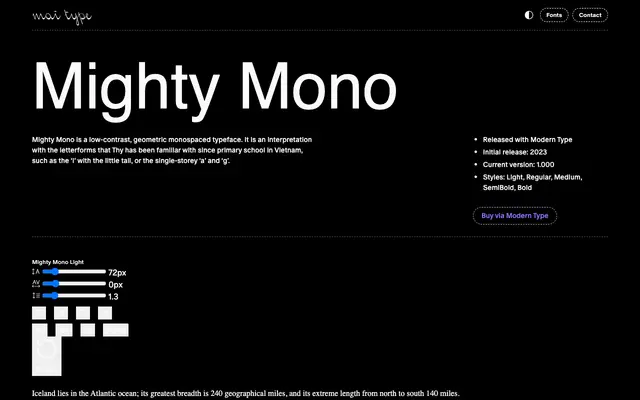
Mighty Mono
Mai Type · Thy · 2023
A low-contrast geometric monospaced typeface drawing on the letterforms the designer encountered in Vietnamese primary school education.
Designed by Thy and released in 2023, the typeface takes specific cues from Vietnamese handwriting conventions, including a tailed 'i', single-storey 'a' and single-storey 'g'. Five weights run from Light to Bold with no italics, making it a straightforward but culturally grounded mono for both Latin and Vietnamese text. Sold via Modern Type.
Explicitly described as a low-contrast, geometric monospaced typeface, with single-storey 'a' and 'g' confirming geometric construction.